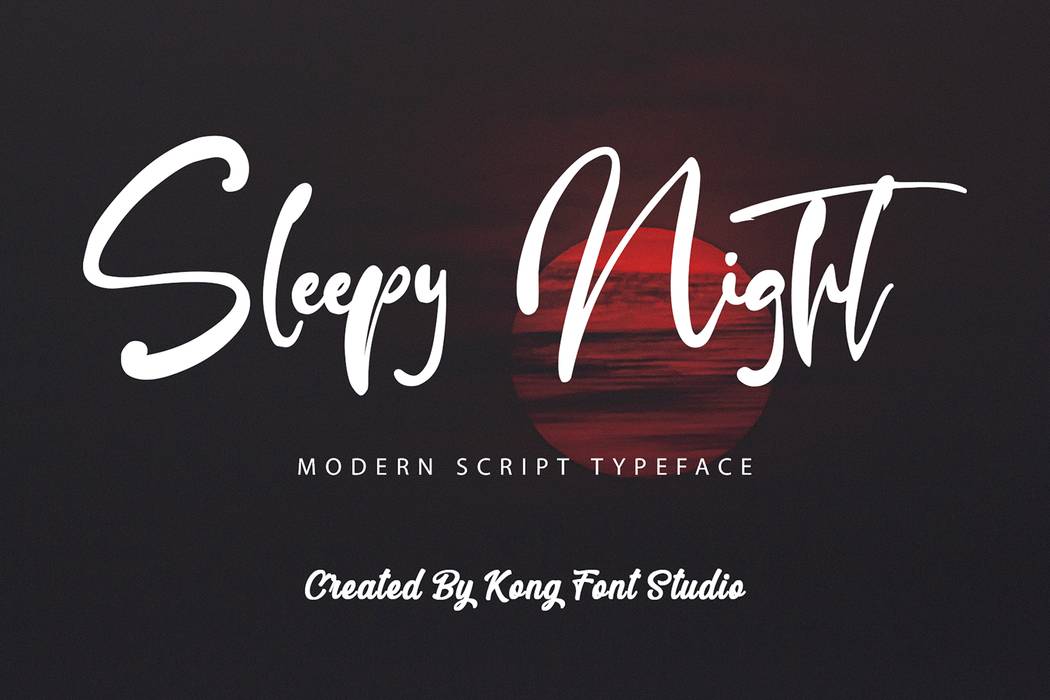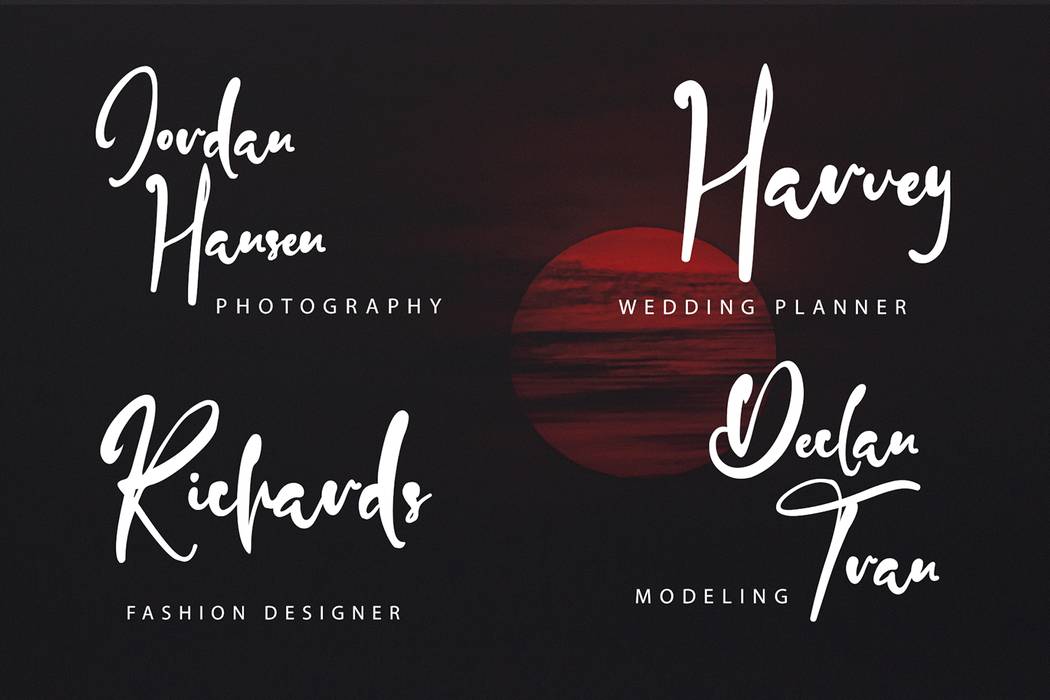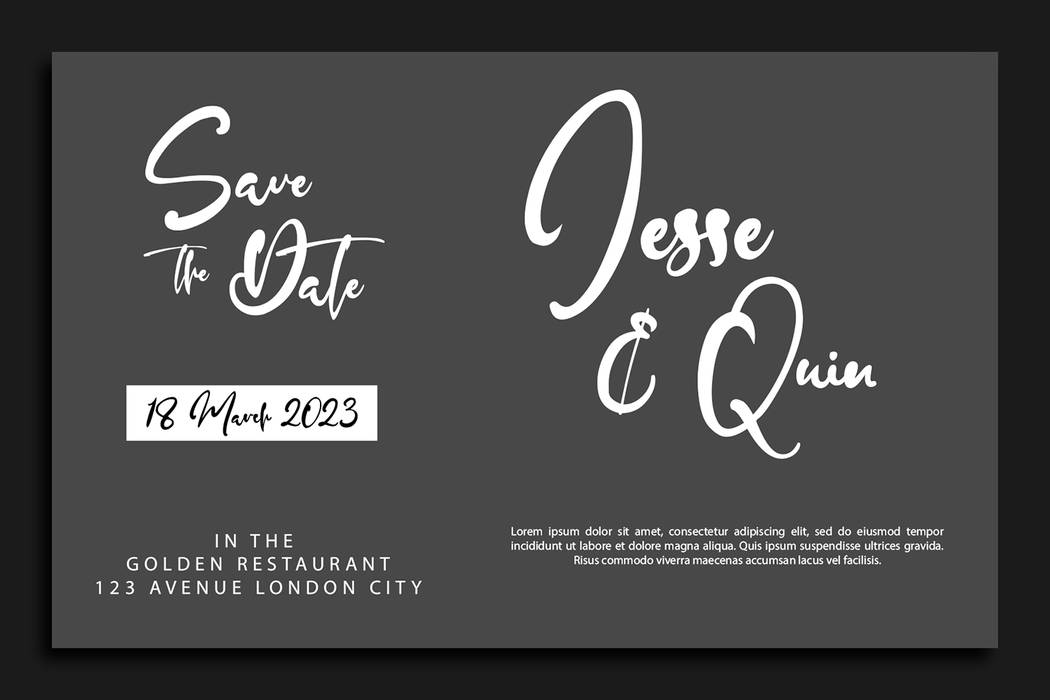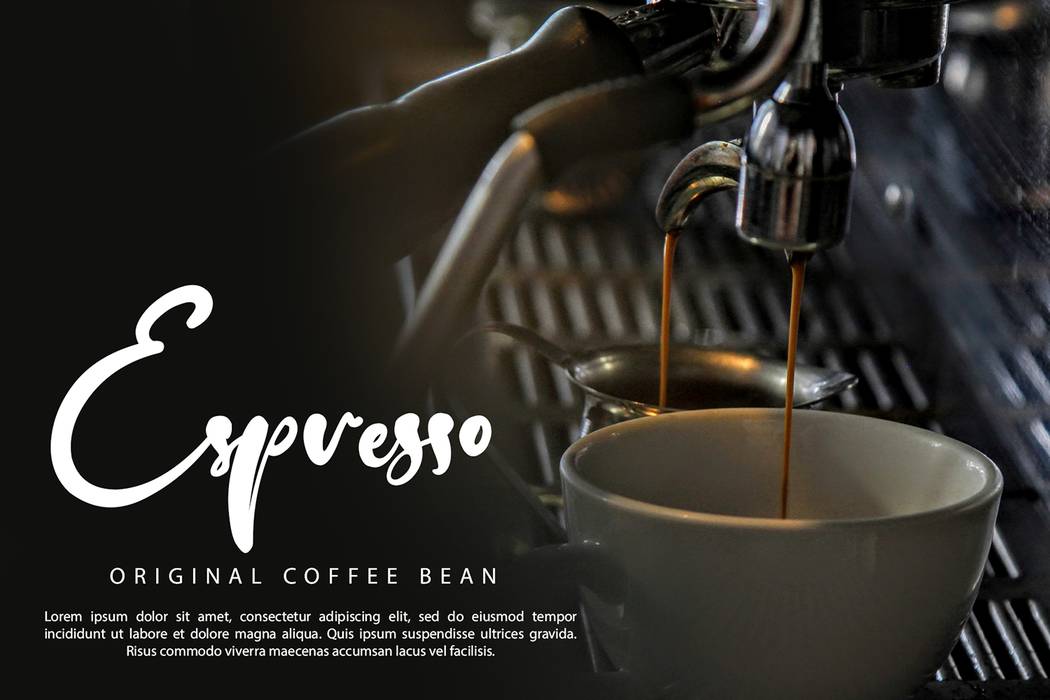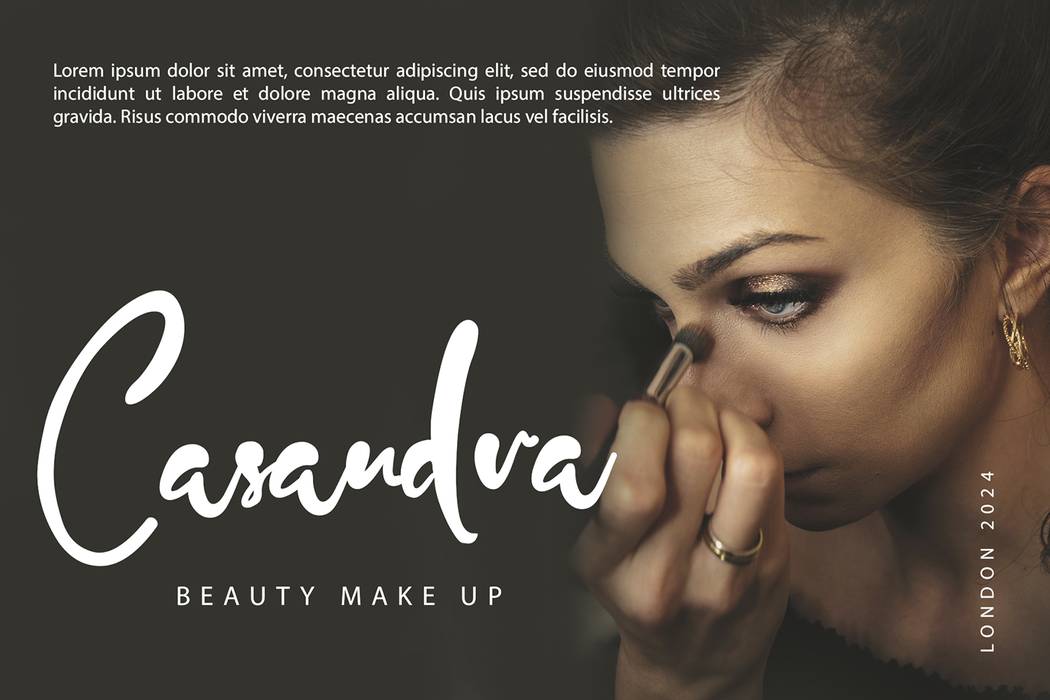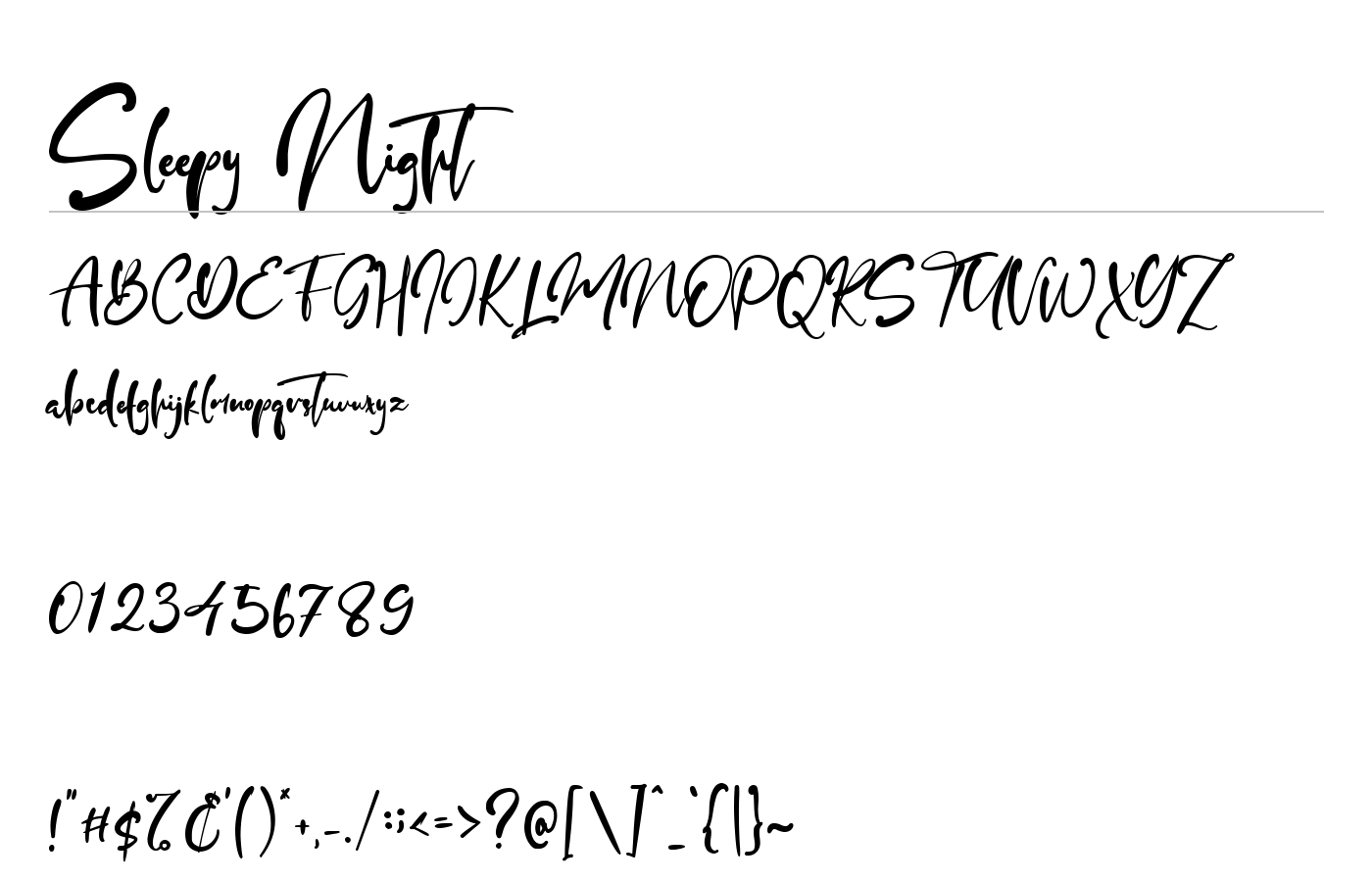
Sleepy Night is a lively and elegant handwritten script font characterized by its smooth, flowing strokes and a balanced mix of bold and delicate lines. Its casual yet sophisticated style brings a personal, artistic touch, making it perfect for creative branding, invitations, and stylish headlines where a warm, inviting feel is desired. This font works well in both digital and print contexts, adding charm and personality without sacrificing readability.
Sleepy Night Font
About Sleepy Night Font